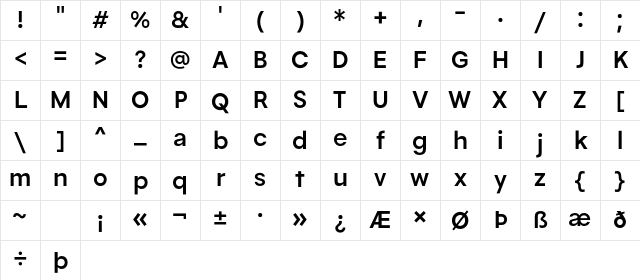
Garmit Semibold Regular
Foundry: Fitrah Type
Designer: Moch Fitrah Hidayat
Design Context for Garmit Semibold
Garmit Semibold is a composed and adaptable typeface that performs quietly and consistently across a wide range of design contexts. Its bold stroke weight gives it real presence on the page.